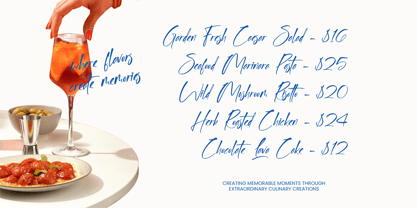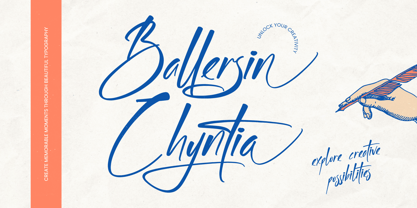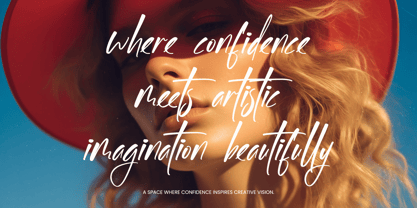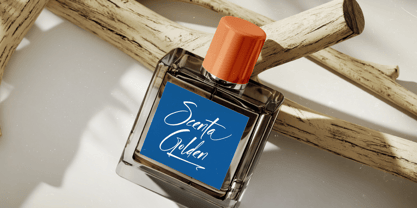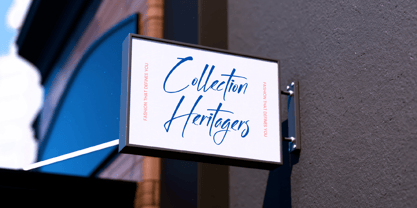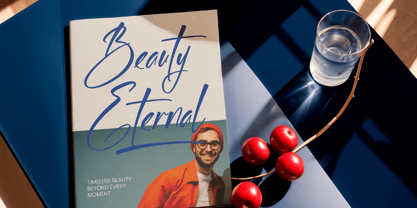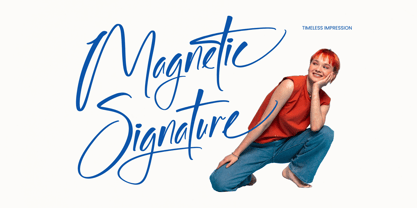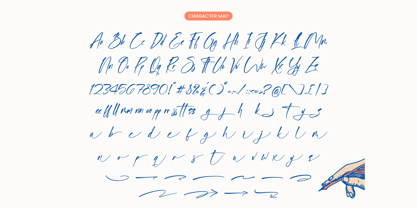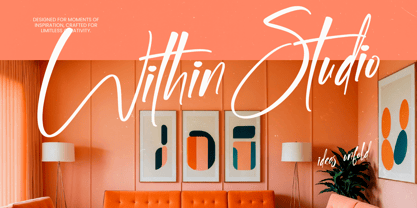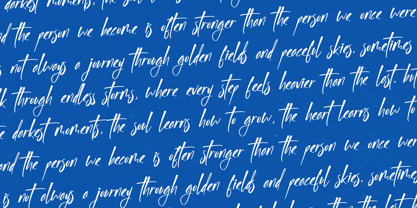
Ballersin Chyntia
La familia tipográfica Ballersin Chyntia fue diseñada por Heru Utama Putra y publicada por Letterena Studios. Ballersin Chyntia contiene 2 estilos y opciones de paquete familiar. Más información sobre esta familia
Ballersin Chyntia - Modern Handwritten
Elevate your creative vision with a typeface that embodies sophisticated elegance and fluid artistry. Ballersin Chyntia - Modern Handwritten is a premium script font that captures the essence of refined penmanship with its expressive strokes and organic flow. This typeface offers a perfect balance between modern aesthetics and classic charm, ensuring that every design project radiates a sense of authentic craftsmanship and high-end appeal.